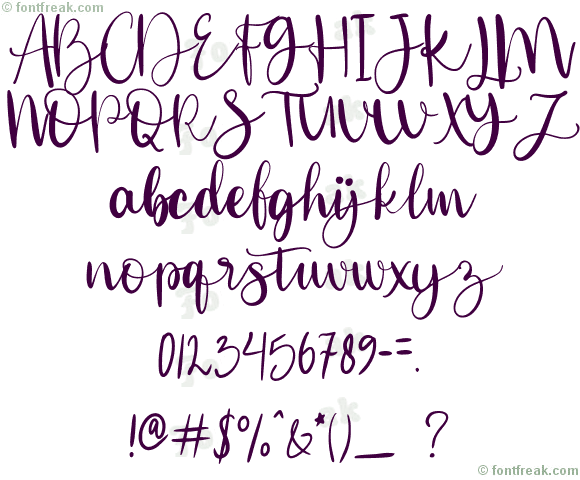
Secillia
About Secillia
Secillia, crafted by Burhan Afif in 2019, is a stunning script font that beautifully merges elegance and creativity. This font falls under the handwritten category, showcasing fluid lines and a distinctive cursive style that exudes charm. The strokes of Secillia vary in weight, offering a delightful contrast that enhances its visual appeal. The letters are gracefully connected, providing an organic flow that is both inviting and sophisticated. Its ample spacing ensures readability while maintaining a personal touch, making it an excellent choice for various design applications.
Secillia is particularly well-suited for wedding invitations, where its romantic flair can add a touch of elegance to the occasion. It also shines in branding projects, making it ideal for logo designs that require a unique and stylish identity. Restaurant menus can benefit from its inviting aesthetic, helping to create an appetizing atmosphere. Additionally, Secillia can elevate greeting cards and personal stationery, making everyday correspondence feel special. Its versatility ensures that it can cater to both formal and informal designs.
The target audience for Secillia includes graphic designers, small business owners, and content creators who seek a font that stands out while maintaining legibility. Those looking to add a personal touch to their projects will find Secillia to be an invaluable asset.